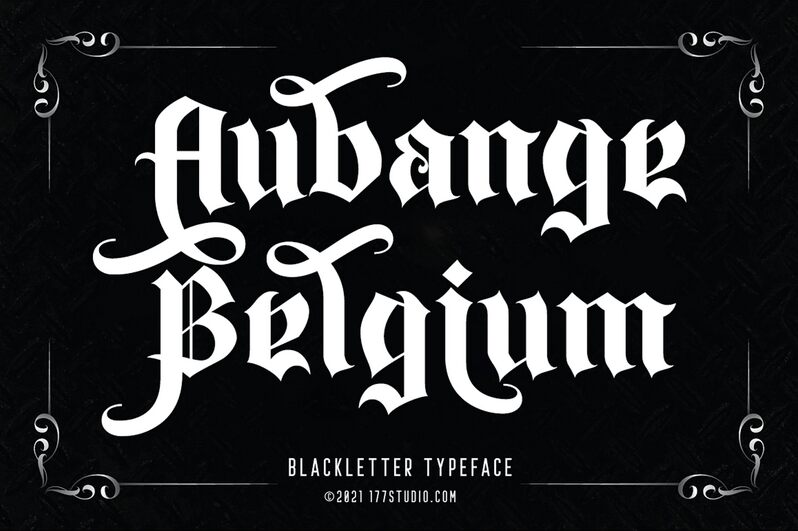
Inspired by the ancient beauty of Aubange, Belgium, this bold gothic font by 177Studio captures the essence of medieval craftsmanship.
Its strong and commanding presence makes it perfect for historical novels, fantasy games, and movie titles. With its intricate details and imposing letterforms, Aubange Belgium adds an air of mystery and grandeur to any project. Whether you're creating a logo for a medieval-themed event or designing packaging for a dark fantasy novel, this font will transport your audience to a world of knights, castles, and enchantment.
Aubange Belgium